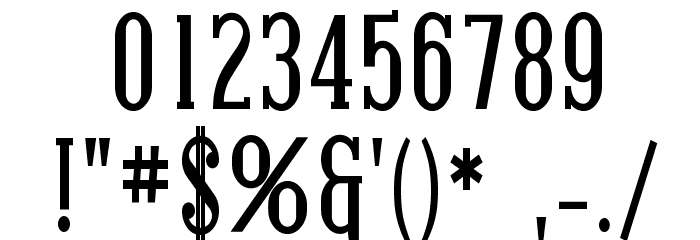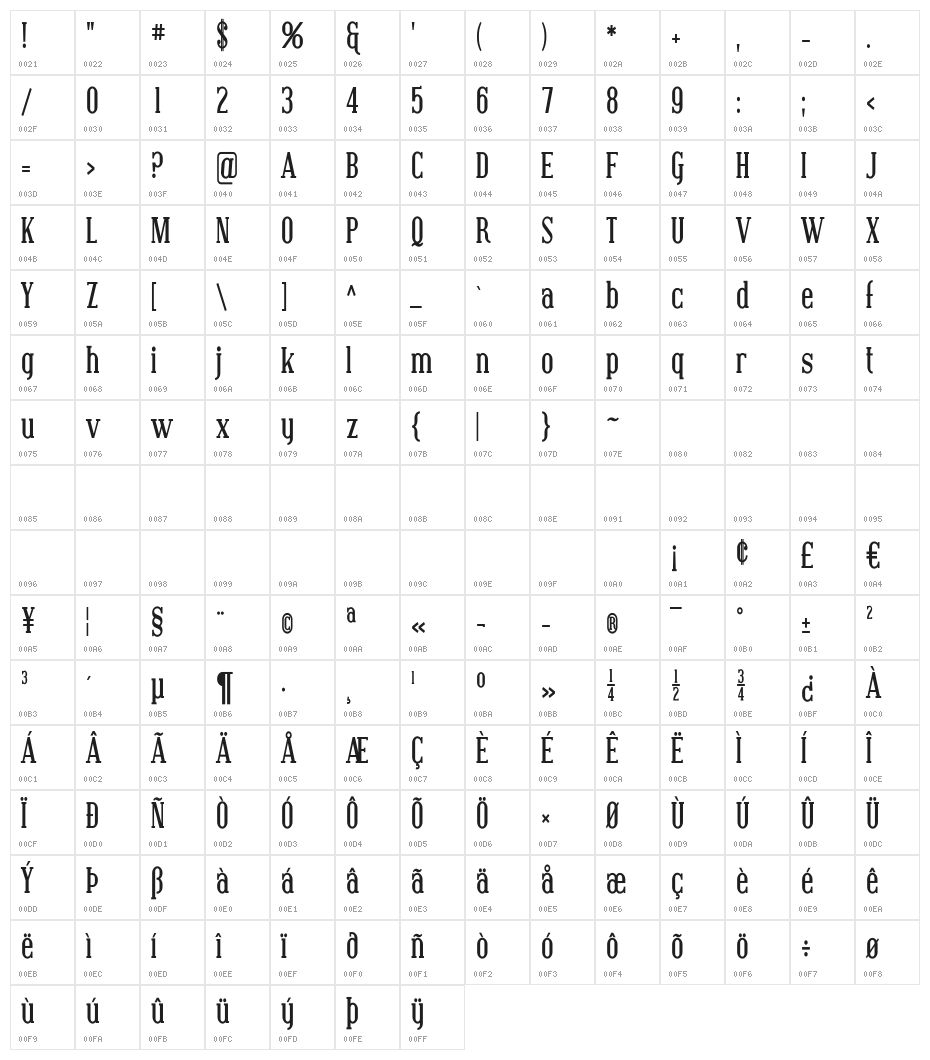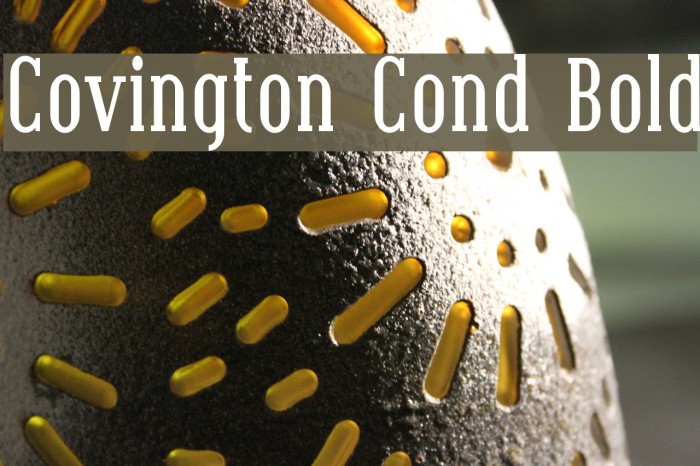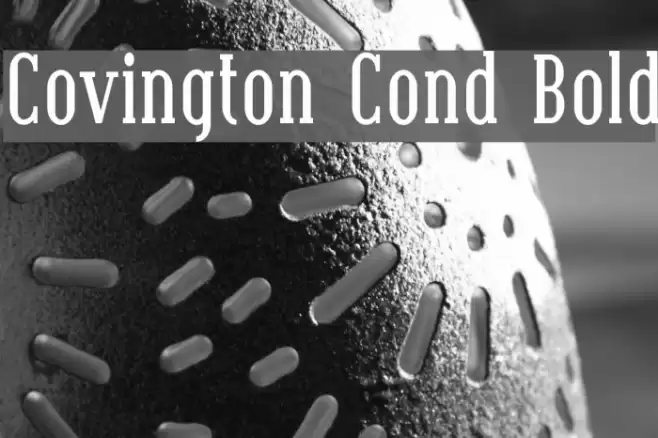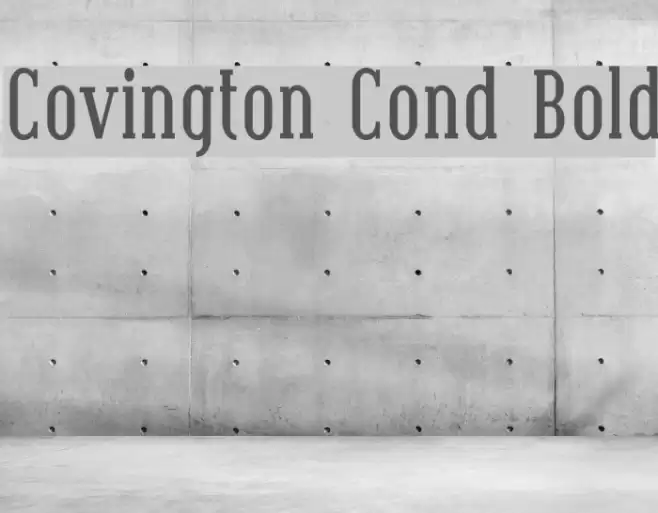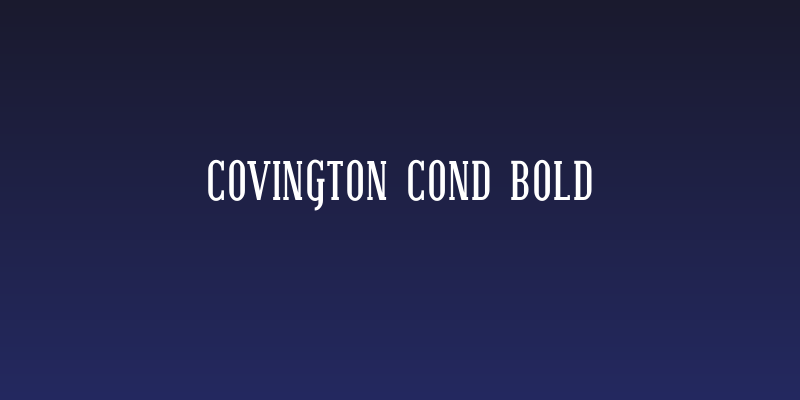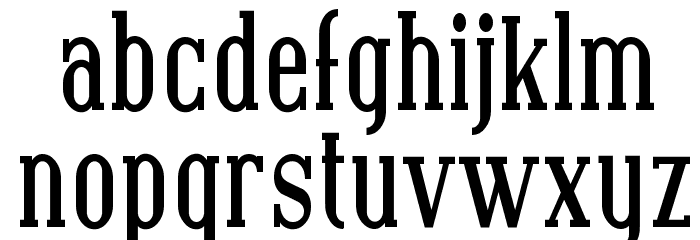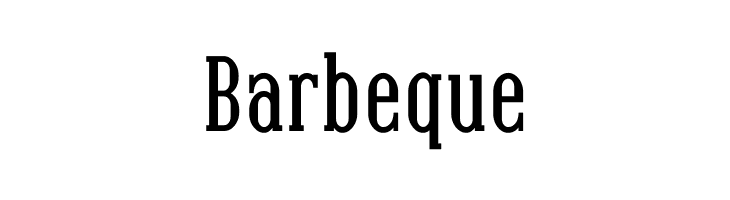
Covington Cond Bold Font
Covington Cond Bold Description
This font features a bold and condensed style, characterized by its strong vertical emphasis and narrow letterforms. The serifs are pronounced yet refined, adding a touch of elegance to the overall robust appearance. The uppercase letters are tall and commanding, while the lowercase letters maintain a consistent height that complements the uppercase. The numerals are clear and distinct, ensuring readability. Special characters are well-defined, maintaining the font's cohesive look. This typeface is designed to make a strong visual impact, suitable for various design applications.
| Proposed Projects | Ideal for headlines, posters, branding, and editorial design where a strong, impactful presence is needed. |